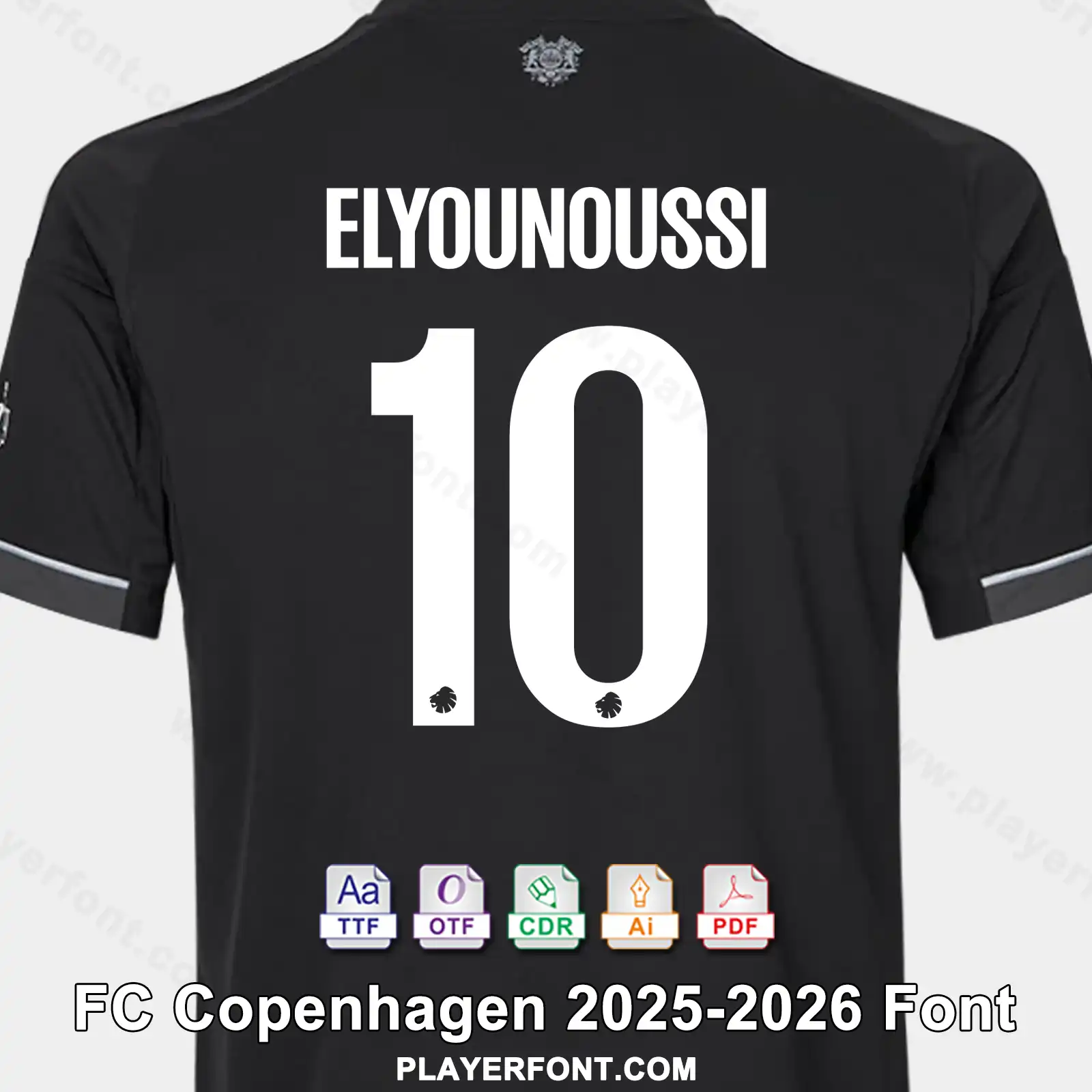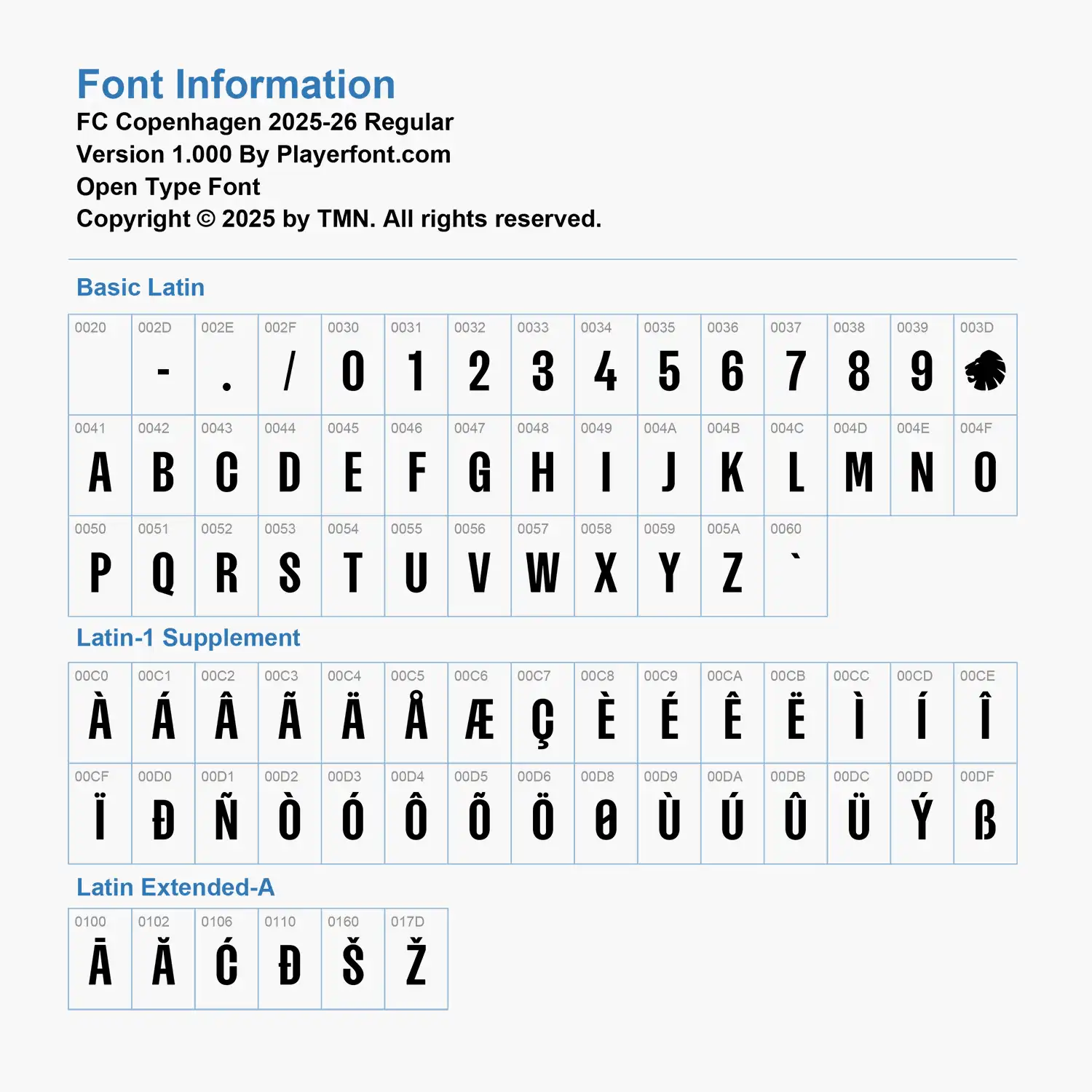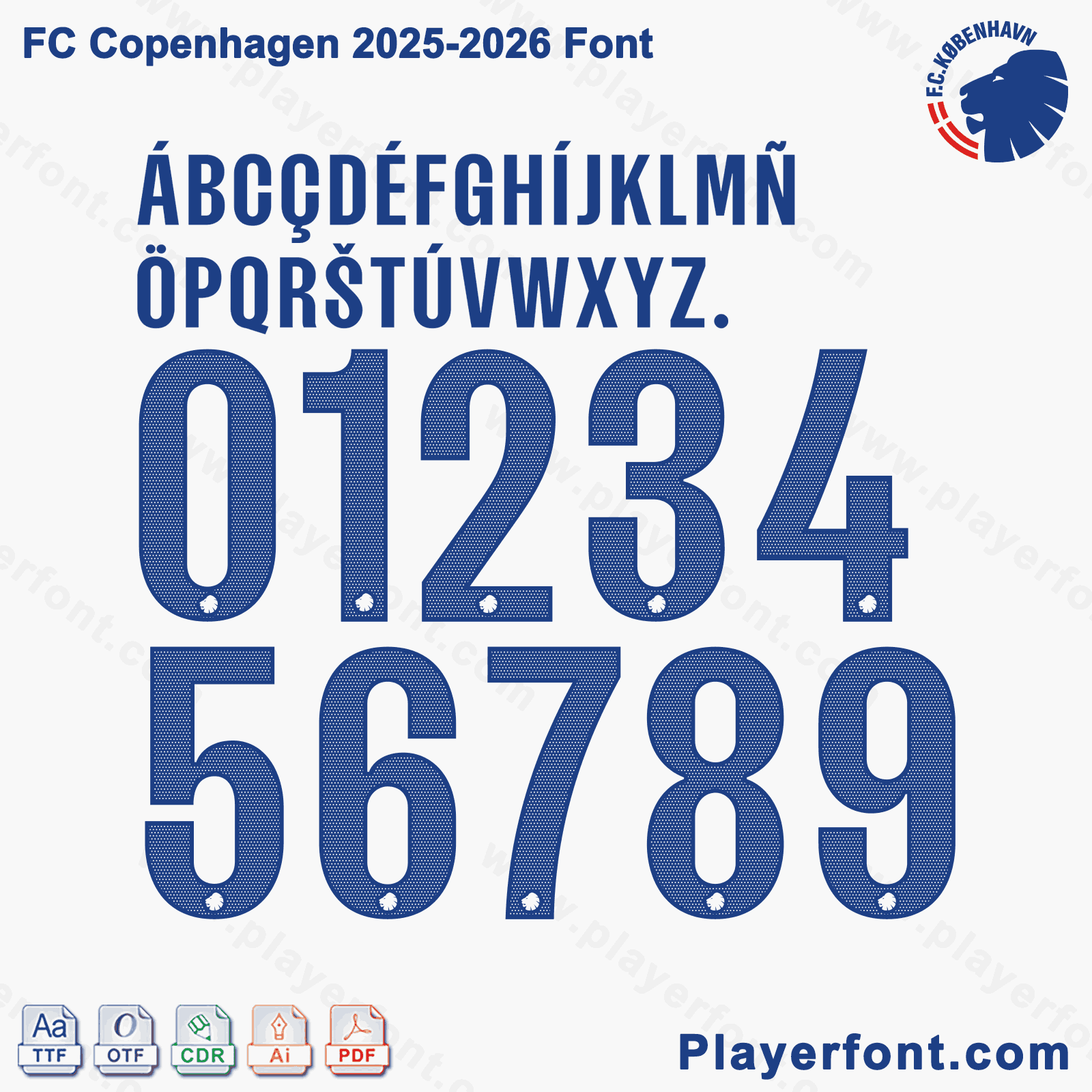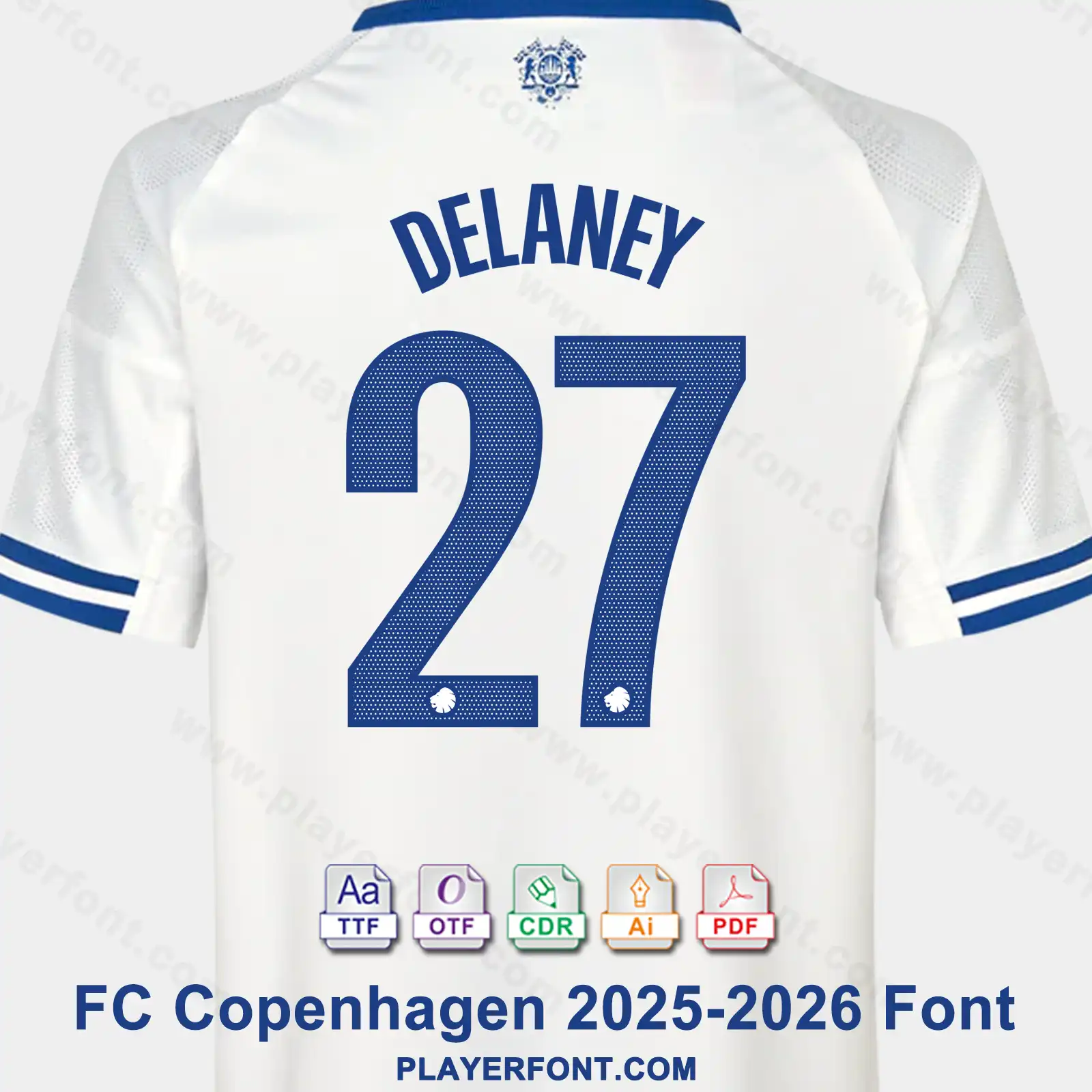
Download the premium FC Copenhagen 2025-2026 Font Kit today! This complete typography pack includes high-quality TTF, OTF, AI, CDR, and PDF vector files, fully compatible with vector design software and sports apparel printing. Features a clean, tall condensed uppercase character set and unique dotted mesh-texture jersey numbers. Perfect for kit designers, vinyl plotting, and Byens Hold fans.
FC Copenhagen 2025-2026 font jersey numbers and alphabet presentation layout with TTF OTF AI CDR PDF formats by Playerfont.
Elevate your sports jersey mockups, football custom graphics, and vector apparel printing projects with the high-quality FC Copenhagen 2025-2026 Font Download. Masterfully engineered by Playerfont.com, this high-performance typography set replicates the official-style numbers and distinct lettering featured on the pitch for the Danish Superliga and European campaigns.
Key Typography Features & Character List:
This typography pack is fully optimized to support international player rosters and diverse numbering layouts:
• Basic Latin & Clean Condensation: Contains a bold, tall condensed uppercase character set, clean block letters, numbers (0-9), hyphens, and periods.
• Advanced International Accent Support: Includes an expansive set of diacritics spanning Latin-1 Supplement and Latin Extended-A (such as À, Å, Æ, Ç, É, Ñ, Ø, Ü, Ý, and Ž) ensuring flawless rendering for global football stars and Nordic naming requirements (such as Elyounoussi, Delaney, etc.).
• Authentic Visual Details: The vibrant blue jersey numbers feature a premium custom micro-dotted mesh performance texture, with the signature FC Copenhagen lion crest silhouette subtly embedded at the base of each digit.
Design Feature Dotted Mesh Half-Tone Pattern Texture with Lion Crest Base
Horizontal vector layout banner template of FC Copenhagen 2025-2026 football kit numbers and full alphabet string.FC Copenhagen 2025-2026 Font Kit Download